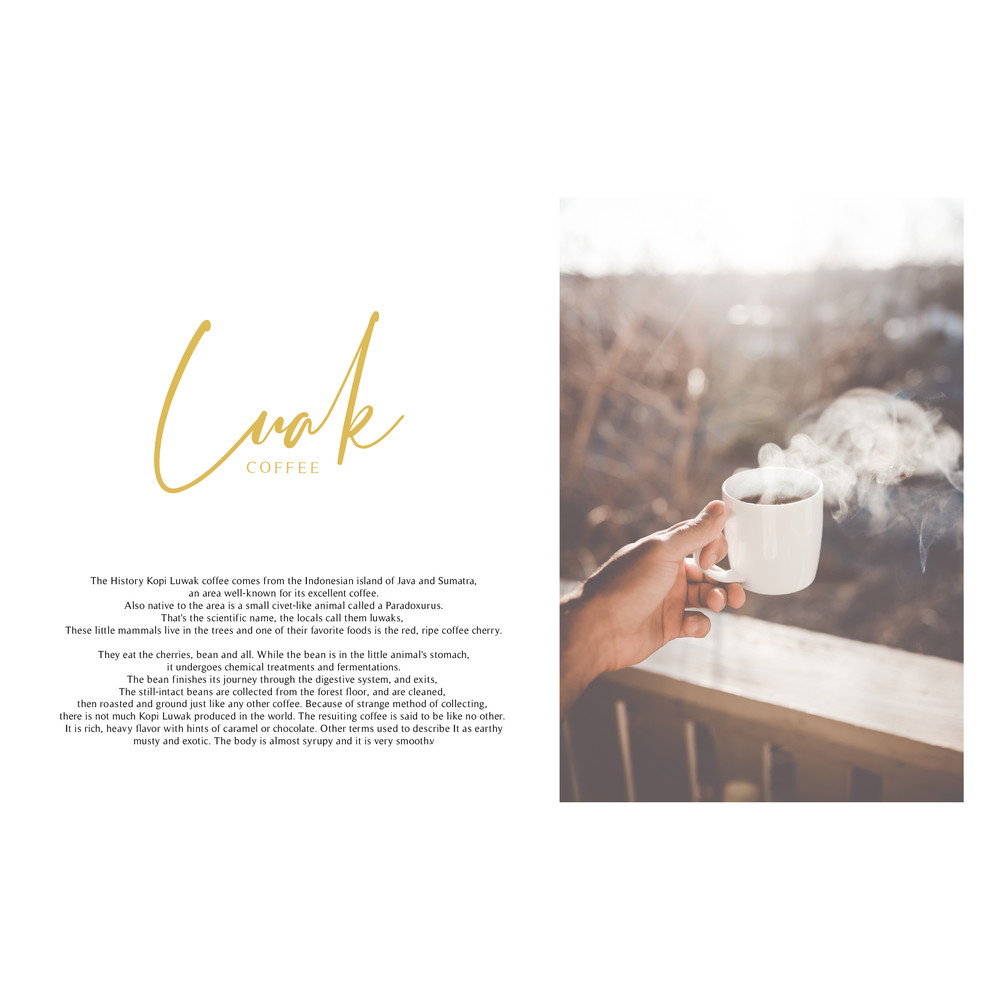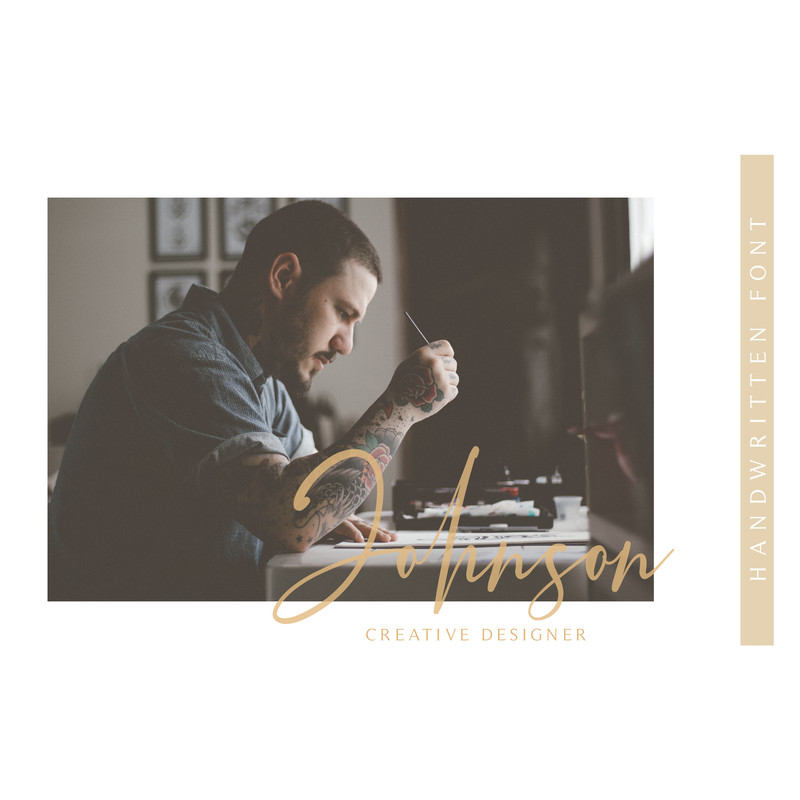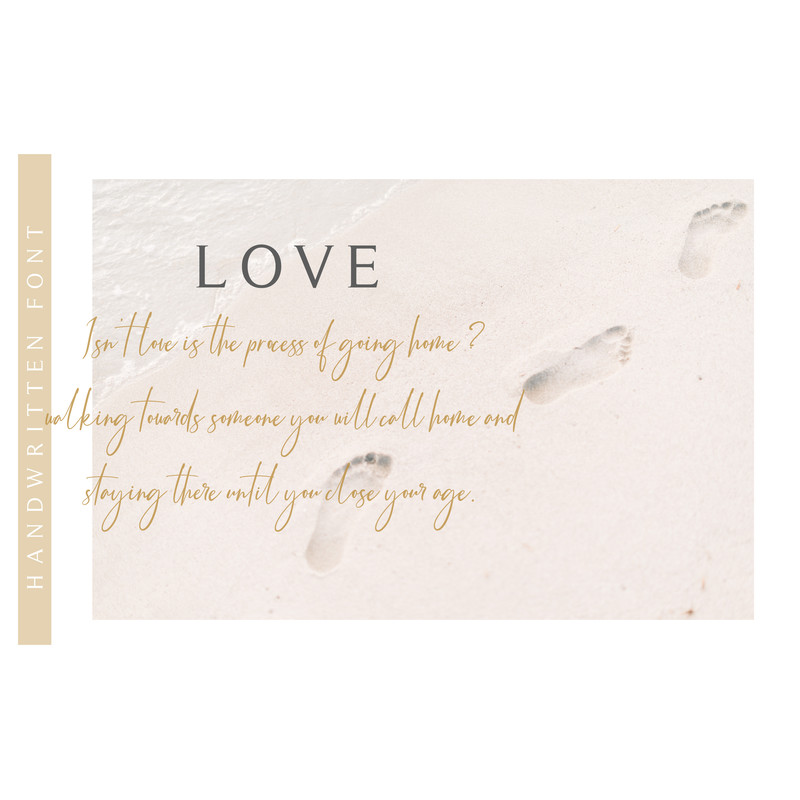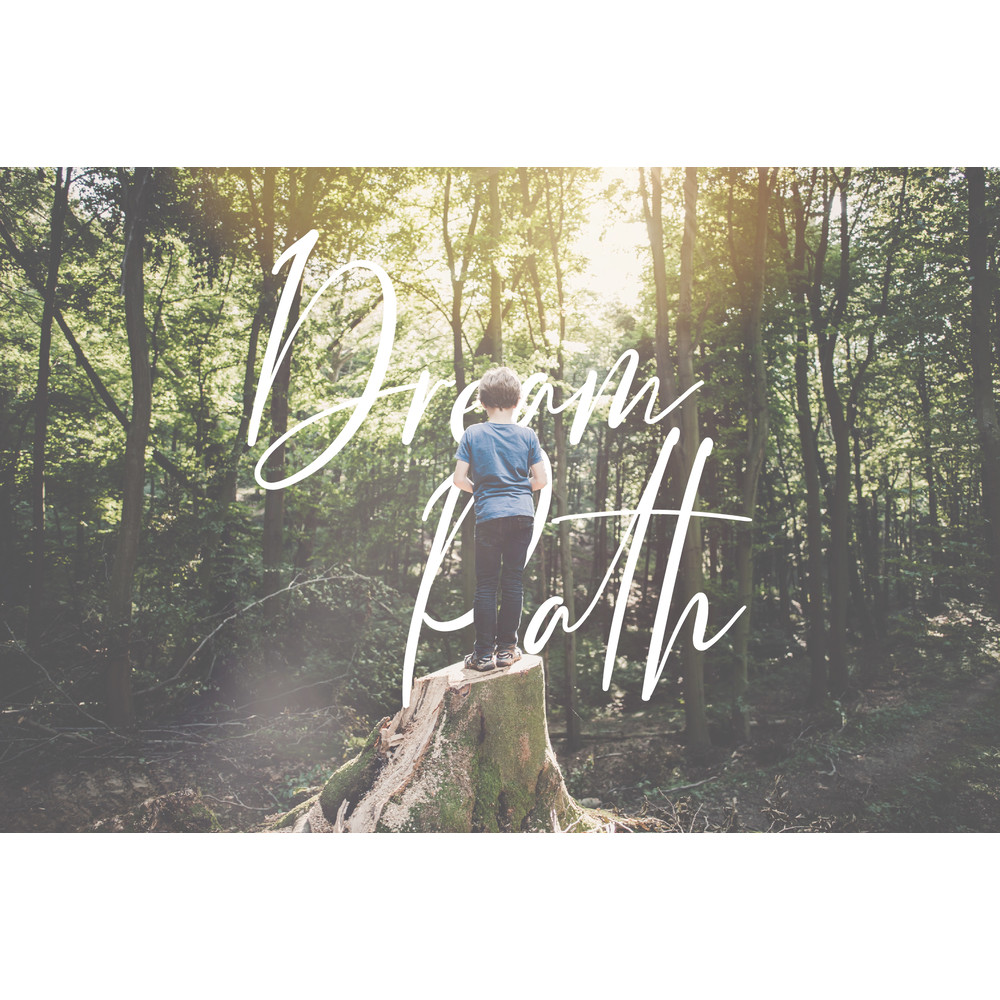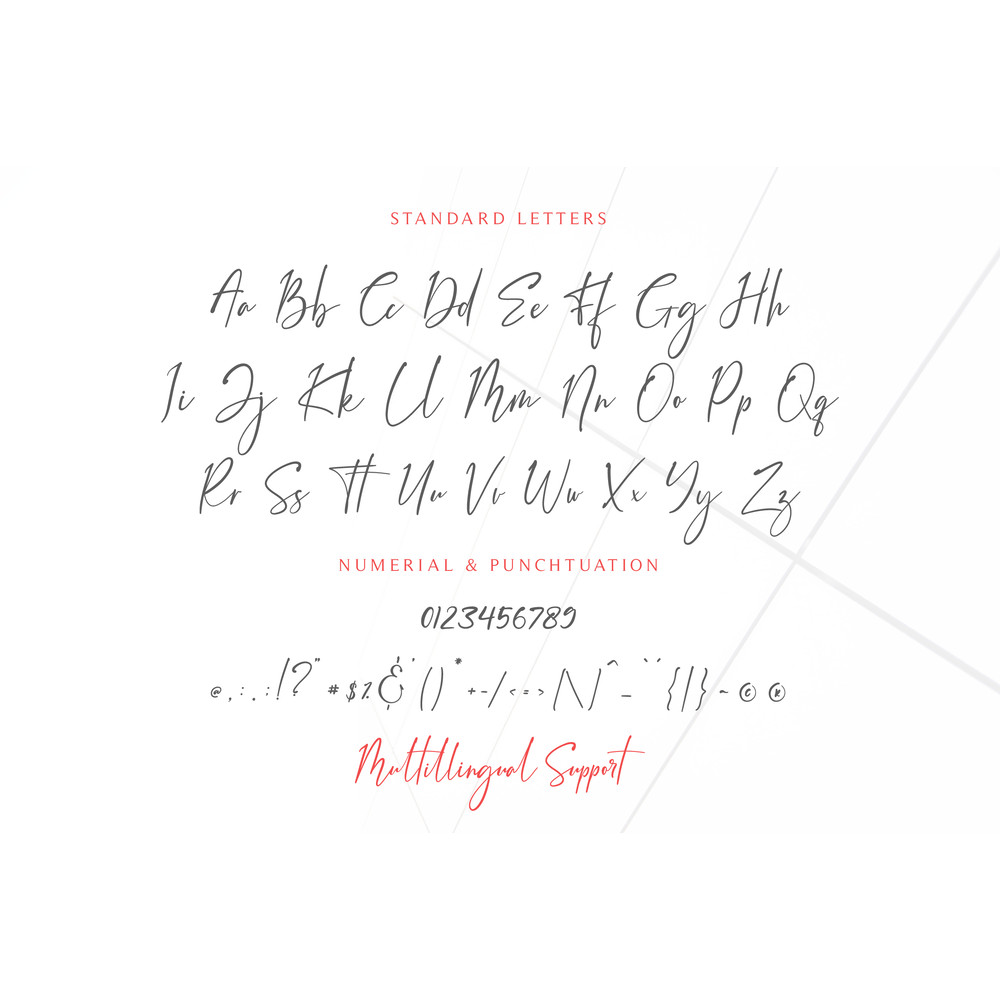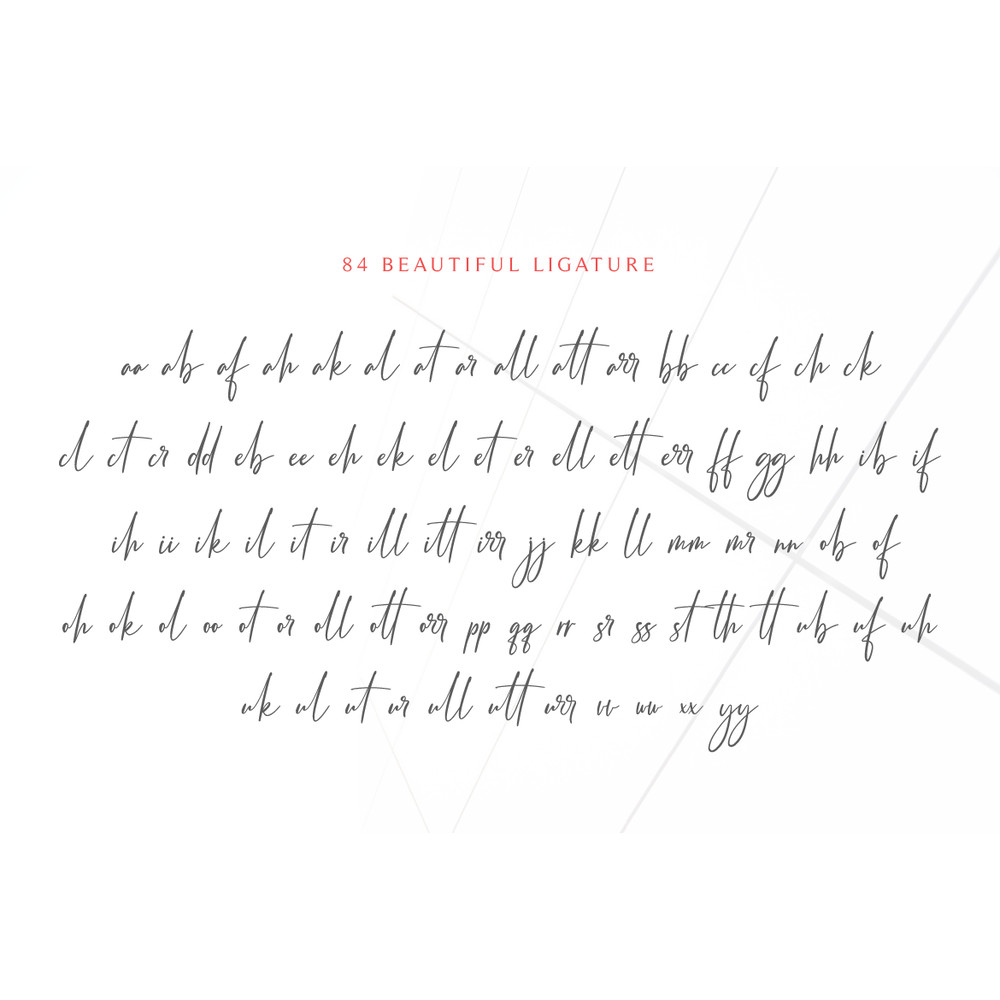
Bernaillo Trending Fonts - Digital Font
Bernaillo font very suitable for use in a variety of uses such as watermarks, signature and signature logos, business cards, brand names, and many more.
Feature :
– All Caps
– Numerial and Punctuation
– 84 Beautiful Ligature : aa ab af ah al at ar all att arr bb cc df ch ck cl ct cr dd eb ee eh ek el er ell ett err ff gg hh ib if ih ii ik il it ir ill itt itt jj kk ll mm mr nn ob of oh ok ol oo ot or oll ott orr pp qq rr sr ss st th tt ub uf uh uk ul ut ur ull utt urr vv ww xx yy
– Multilingual accent: ÀÁÂÃÄÅÆÇÈÉÊËÌÍÎÏÐÑÒÓÔÕÖØÙÚÛÜÝßàáâãäåæçèéêëìíîïðñòóôõöøùúûüýÿ